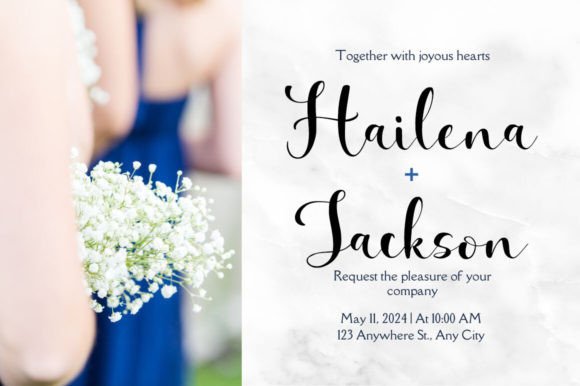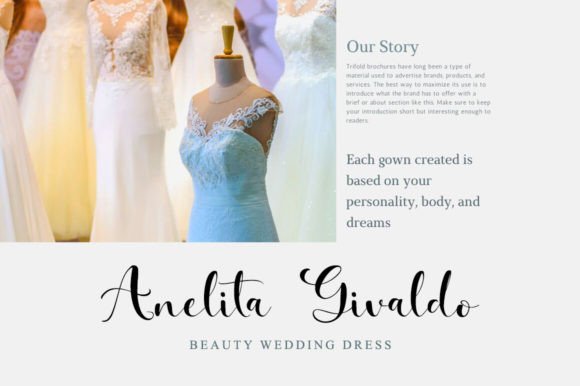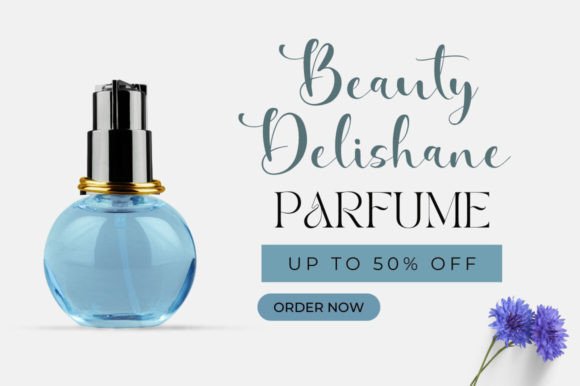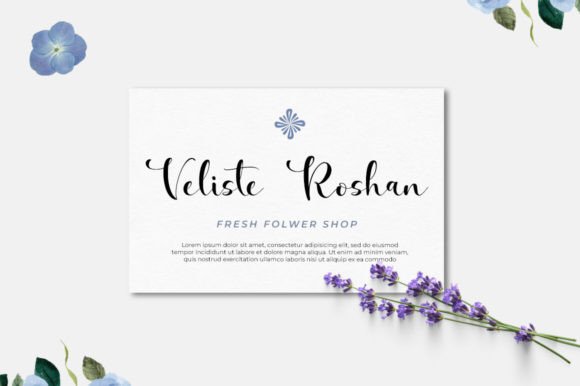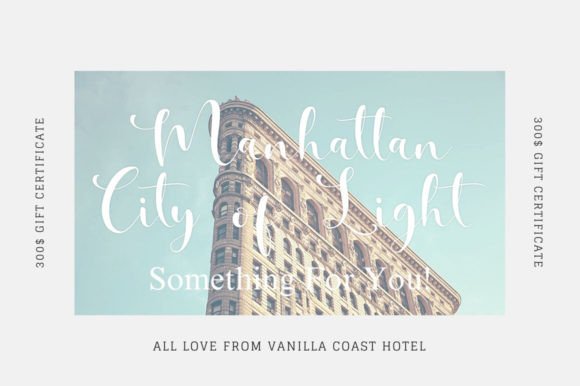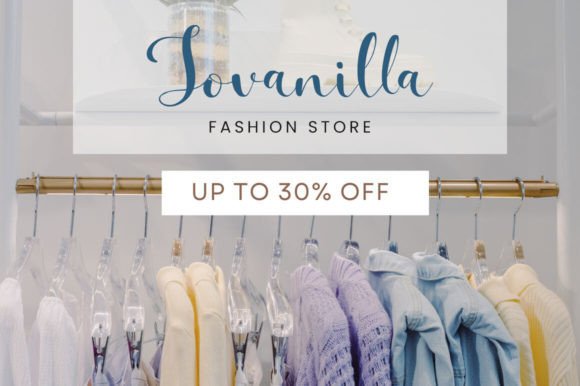
Introducing Buchetone Font: Elevate Your Designs with Elegant Typography
In the world of design, typography plays a crucial role in conveying the message and aesthetic of a project. For designers and crafters looking for a touch of elegance and sophistication, the Buchetone Font is an excellent choice. This beautiful script font offers a wide range of creative possibilities, making it perfect for various projects, from logos and branding to wedding designs and social media posts.
The Beauty of Buchetone Script
The Buchetone Script is a gorgeous typographic font that boasts a unique, handwriting-like quality. Its elegant strokes and flowing curves make it an ideal choice for designs that require a personal touch. Whether you’re working on a logo, invitation, or product packaging, this font is sure to add a level of sophistication and refinement to your project.
One of the best things about the Buchetone Font is its versatility. It’s suitable for a wide range of projects, including:
- Logos & Branding: Create a lasting impression with a custom logo that showcases your brand’s personality and style.
- Invitations: Make your guests feel special with beautifully designed invitations that set the tone for your event.
- Stationery: Elevate your business or personal correspondence with elegant letterheads, envelopes, and more.
- Wedding Designs: Make your big day even more unforgettable with stunning wedding invitations, programs, and decorations.
- Social Media Posts: Stand out in a crowded feed with eye-catching social media graphics that showcase your brand’s personality.
- Advertisements: Grab attention and drive results with compelling ad copy that features the Buchetone Font.
- Product Packaging: Make your products shine with custom packaging that reflects your brand’s style and aesthetic.
- Labels: Add a touch of elegance to your products with beautifully designed labels that feature the Buchetone Font.
- Photography: Add a watermark or overlay to your photos with the Buchetone Font for a professional touch.
- Special Events: Create memorable event branding, programs, and decorations with the Buchetone Font.
Why Choose Buchetone Font?
So, what sets the Buchetone Font apart from other typography options? Here are just a few reasons why designers and crafters love this font:
- Unique and Elegant: The Buchetone Font offers a distinctive, handwriting-like quality that’s sure to elevate your designs.
- Versatile: This font is suitable for a wide range of projects, from logos and branding to social media posts and product packaging.
- High-Quality: This font is designed to deliver exceptional results, with crisp lines and smooth curves that look great in any size or format.
Get Creative with Buchetone Font
In conclusion, the Buchetone Font is a beautiful and versatile typography option that’s perfect for designers and crafters looking to elevate their projects. With its unique, handwriting-like quality and wide range of creative possibilities, this font is sure to become a favorite in your collection.